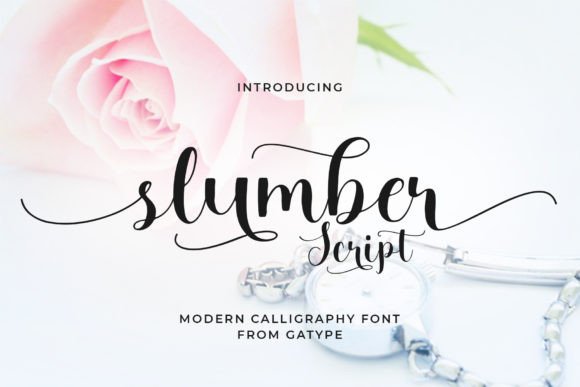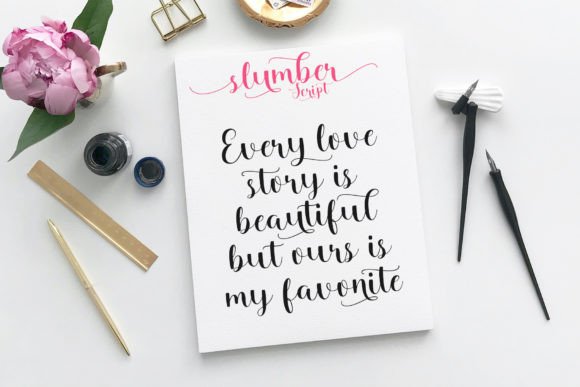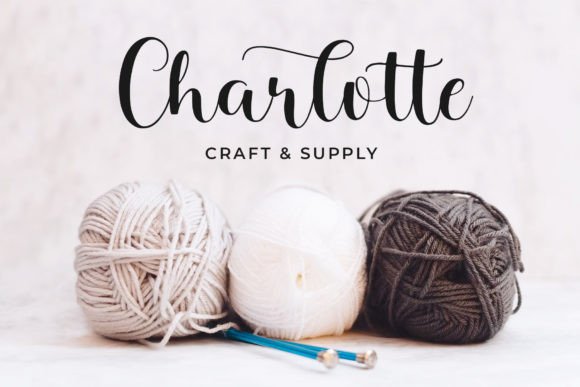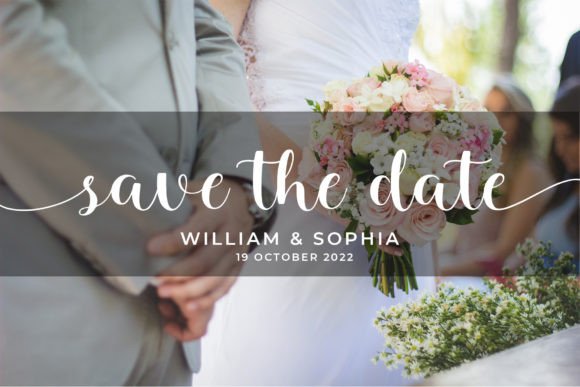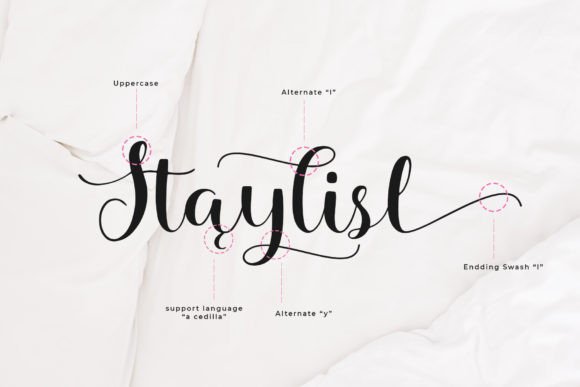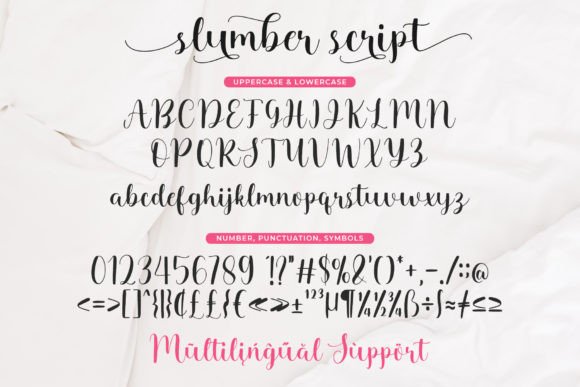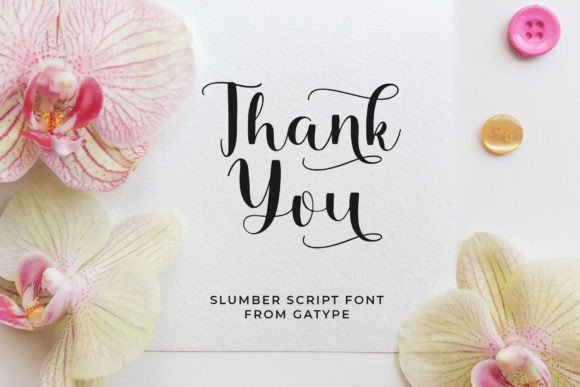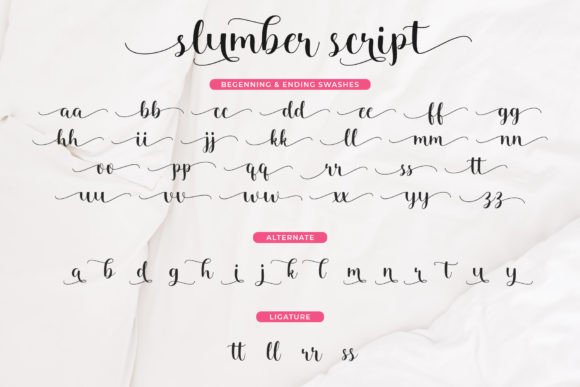
Slumber Script Font
Slumber Script Font Download – Enchanting Romantic Handwritten
The Slumber Script Font download is an enchanting handwritten typeface that blends charm with versatility. With its elegant strokes and romantic flow, this font brings a sense of beauty and sophistication to all creative projects. Because of its wide adaptability, it is perfect for both casual and professional design needs.
Enchanting and Romantic Script Style
Slumber Script features smooth lines and graceful curves that create a timeless handwritten appearance. As a result, it enhances text with warmth and style. In addition, its romantic charm makes it especially fitting for personal projects and special events.
From wedding invitations to heartfelt greeting notes, this font adds elegance and individuality. It makes messages memorable and stylish. Therefore, it is a top choice for stationery and event-related designs.
Slumber Script Font Download for Logos and Posters
The Slumber Script Font download also works beautifully in logos, posters, and branding. Its handwritten strokes provide a professional yet approachable look, helping brands stand out.
Versatility Across Creative Projects
From packaging and magazines to social media graphics and DIY crafts, Slumber Script adapts effortlessly. In addition, its elegant yet simple style ensures that it performs well in both digital and print media.
Readability and Balanced Design
Unlike overly decorative fonts, Slumber Script maintains readability while delivering a stylish impact. As a result, it works for bold headlines, product labels, and detailed design elements.
Why Add This Typeface to Your Collection?
The Slumber Script Font download is versatile, elegant, and easy to use. In other words, it fits invitations, greeting cards, posters, logos, and branding alike. Finally, it is a handwritten script that adds romance, creativity, and timeless elegance to every project.